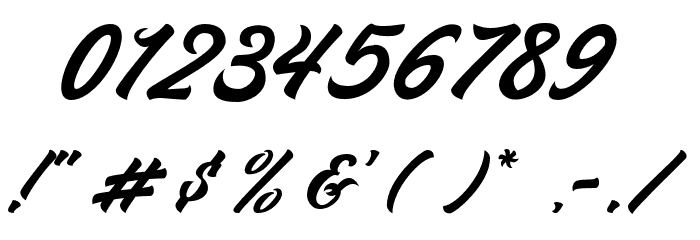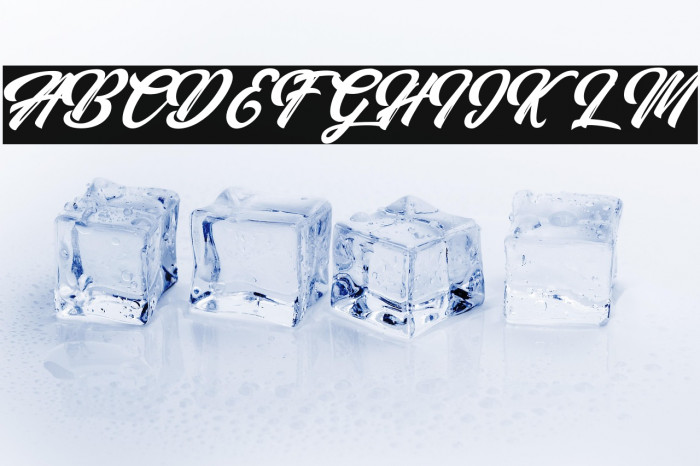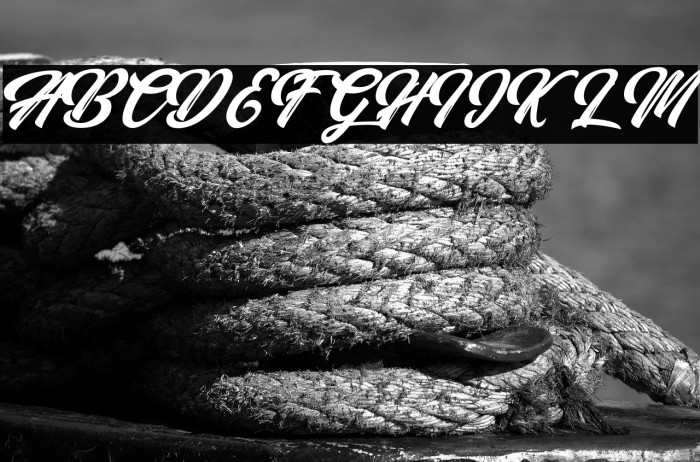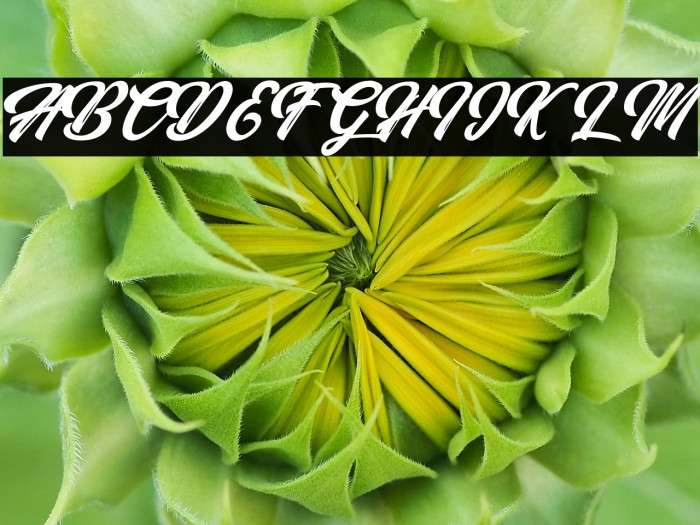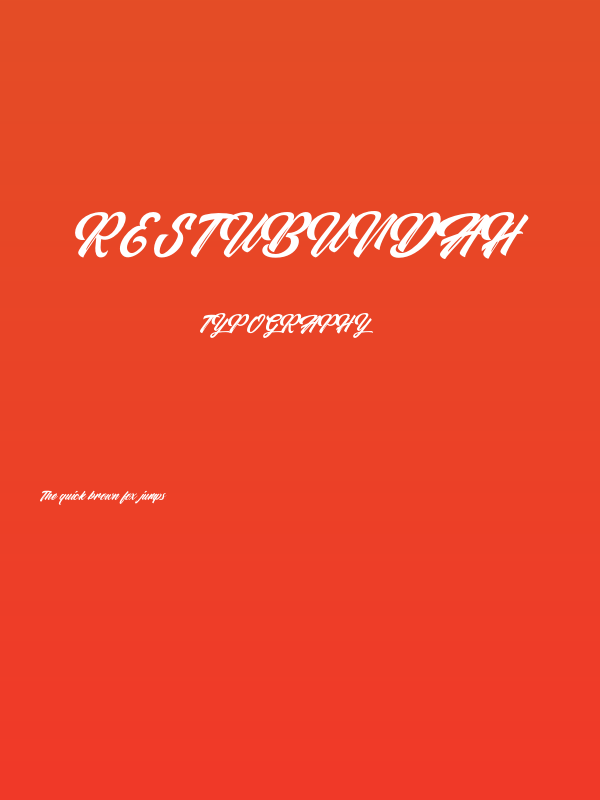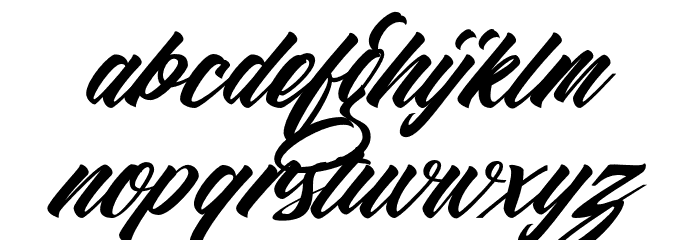
RestuBundah Font
RestuBundah Description
This font exudes a dynamic and elegant style, characterized by its flowing script and bold strokes. The letters are interconnected, creating a seamless and fluid appearance that mimics natural handwriting. The uppercase letters are distinguished by their dramatic flourishes, while the lowercase letters maintain a consistent rhythm and balance. The numerals and special characters are crafted with the same attention to detail, ensuring a cohesive look across all elements. This font's bold presence makes it ideal for making a statement, yet its script nature adds a touch of sophistication and grace.